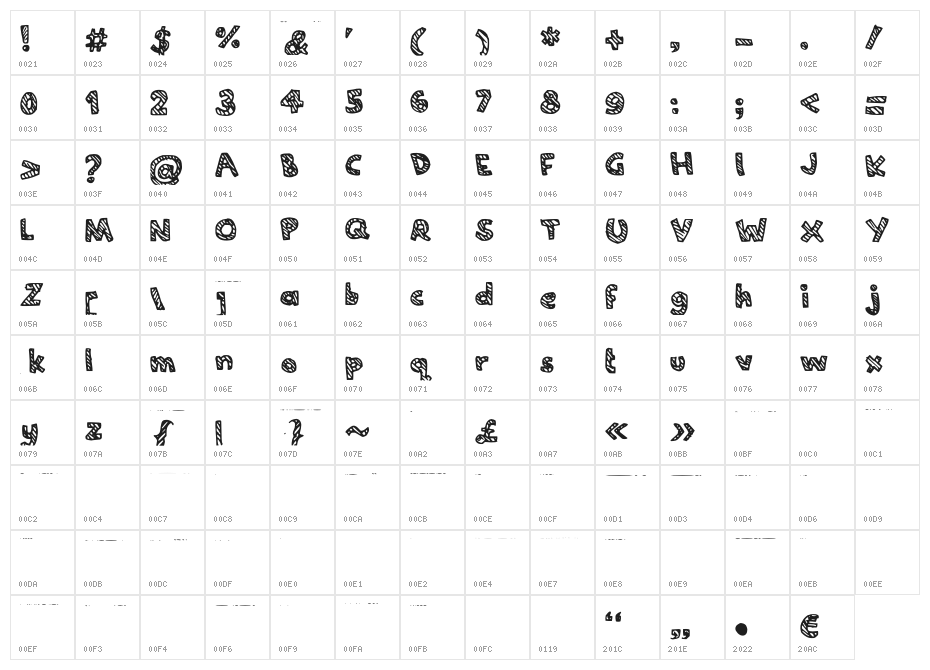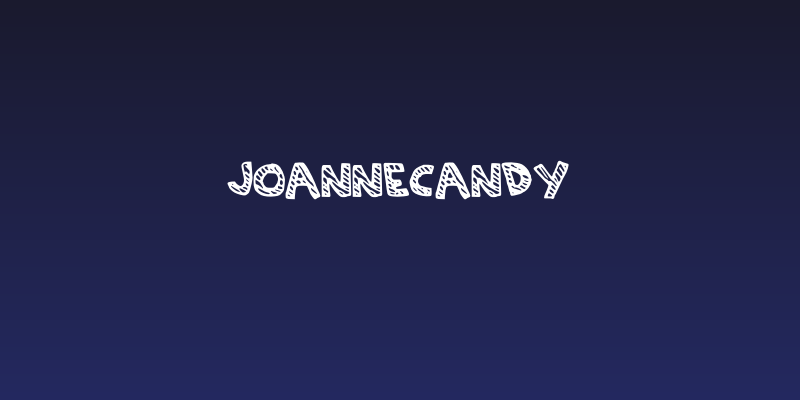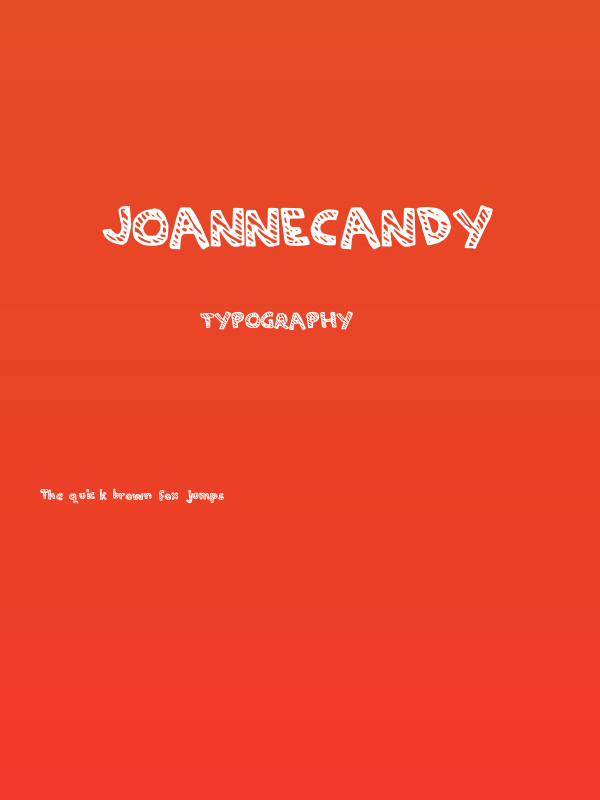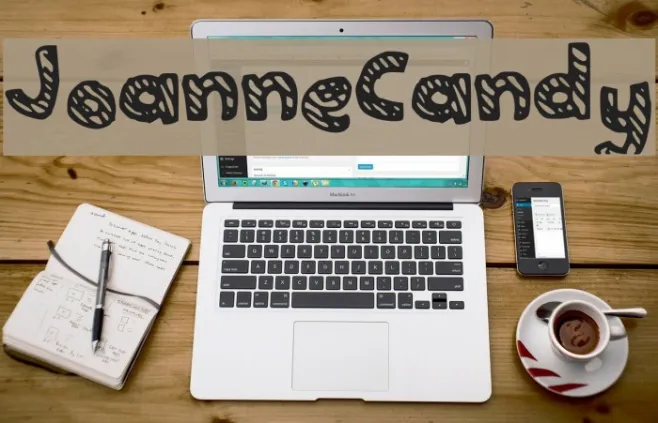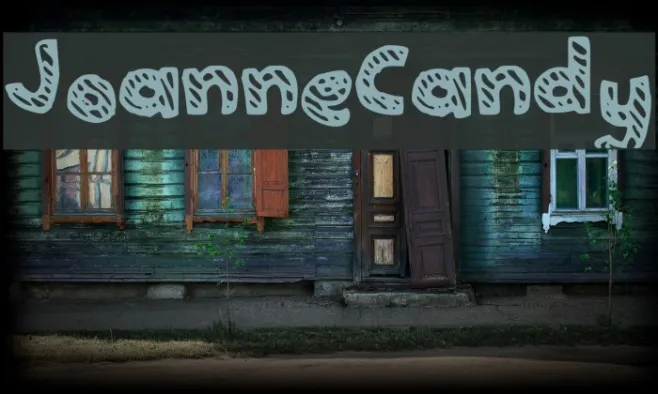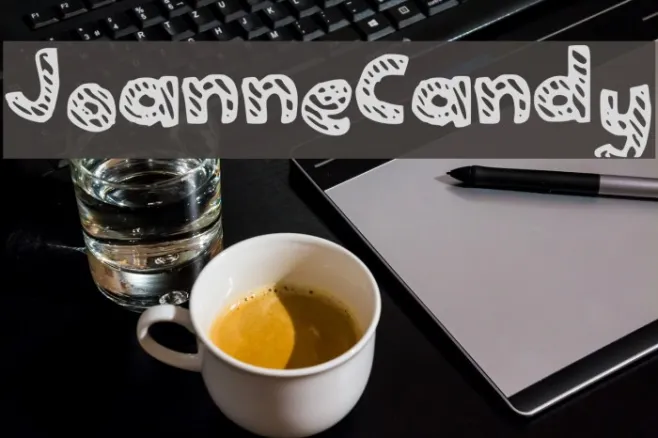
JoanneCandy Font
JoanneCandy Description
This font features a playful and whimsical design with bold, rounded characters filled with diagonal stripes. The letters have a hand-drawn, doodle-like quality, making them stand out with a unique, artistic flair. The uppercase and lowercase letters maintain a consistent style, with numbers and special characters following the same pattern. The font's decorative nature makes it ideal for projects that require a fun and engaging visual element.